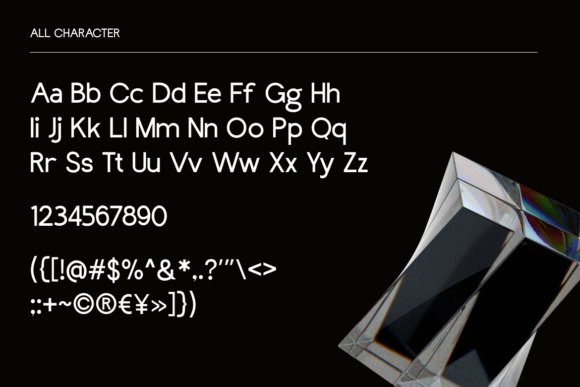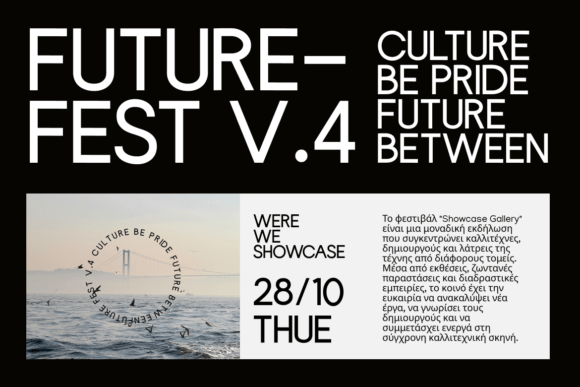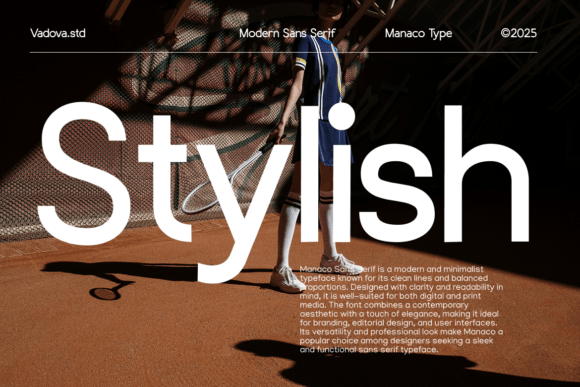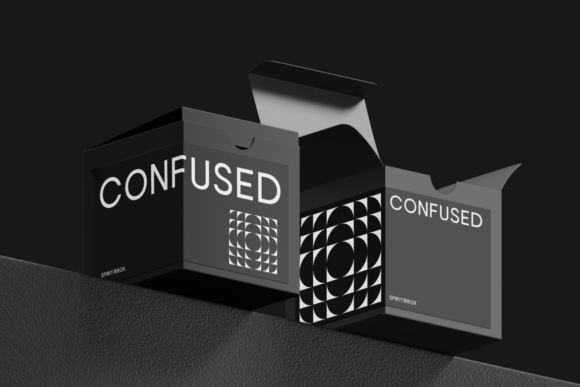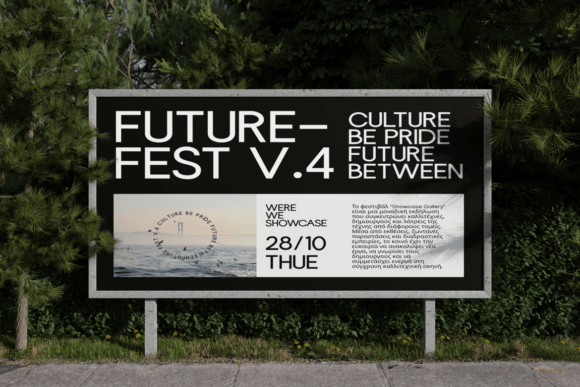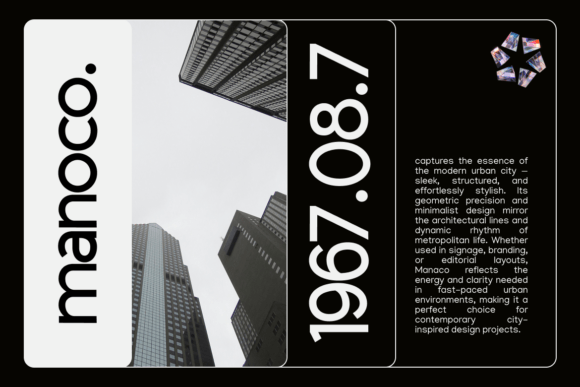
Introduction to Manoco Font
Elevate your digital presence with Manoco, a cutting-edge sans serif display font that captures a “sleek-and-sophisticated” soul.
This typeface features clean, geometric letterforms uniquely characterized by rhythmic, minimalist proportions and a modern structural weight that bridges the gap between high-end tech aesthetics and contemporary editorial branding With its crisp personality and visionary flair, Manoco is the premier choice for independent architectural studio identities, boutique fintech logos, premium app interfaces, and high-impact “minimalist-and-modern” social media headers.
Key Features of Manoco Font
Why Choose Manoco Font?
Manoco Font offers exceptional quality and versatility, making it a valuable addition to your design toolkit. Whether you’re creating for personal projects or commercial use, Manoco Font delivers professional results.